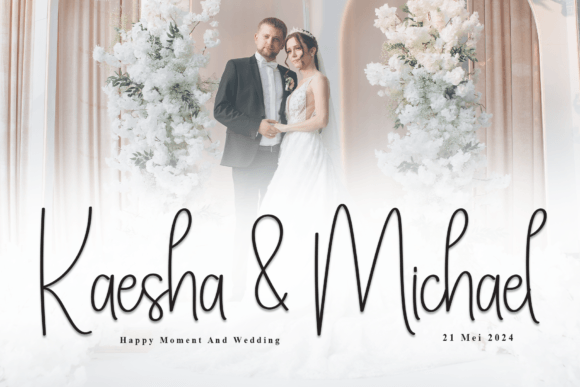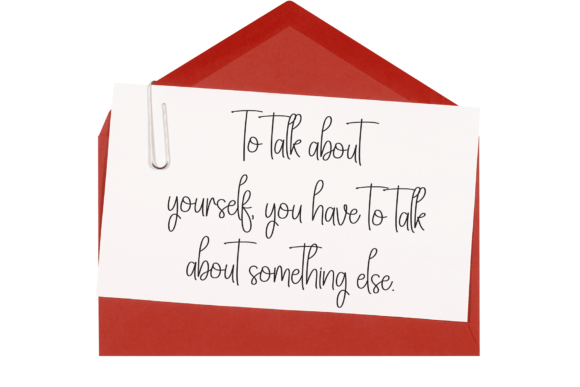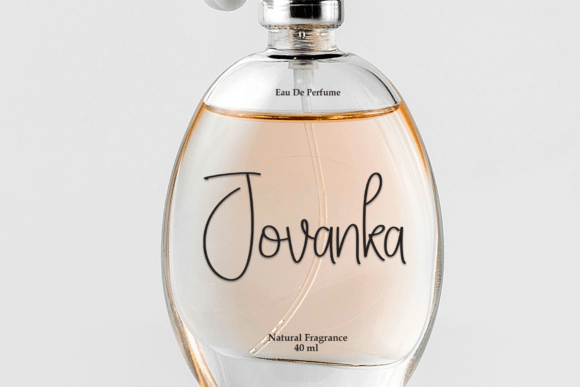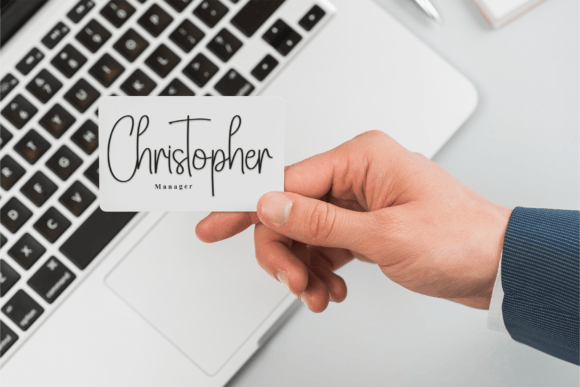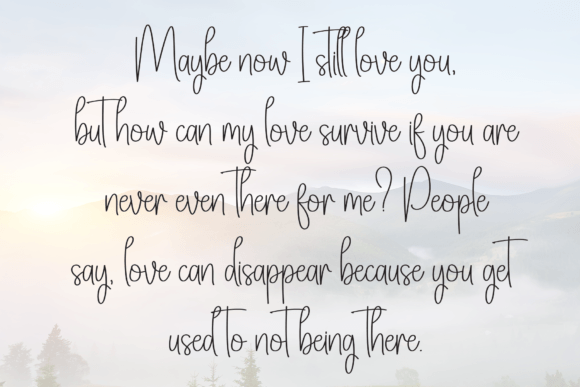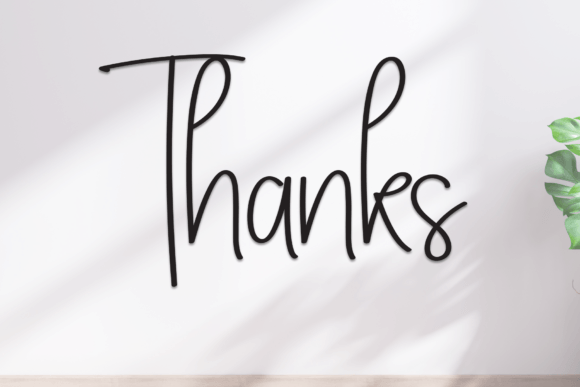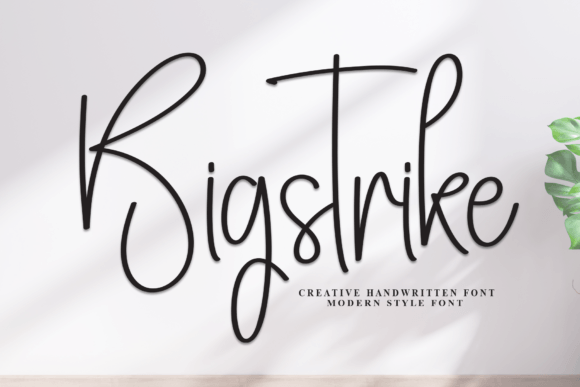
Introducing Bigstrike Font: Elevate Your Designs with Elegance and Flair
Are you a designer or crafter looking for a font that can add a touch of sophistication and whimsy to your creative projects? Look no further than Bigstrike Font, a delicate, elegant, and flowing handwritten font that is sure to make your designs come alive.
The Characteristics of Bigstrike Font
Bigstrike Font is a beautifully crafted font that boasts a range of characteristics that make it perfect for a wide range of design applications. Its delicate and elegant strokes are carefully balanced to create a sense of harmony and flow, making it ideal for use in projects where a touch of sophistication is desired.
One of the standout features of Bigstrike Font is its beautiful and well-balanced characters. Each letter is carefully crafted to ensure that it is proportionate and visually appealing, making it perfect for use in a variety of design contexts, from logos and branding to invitations and stationery.
Why Choose Bigstrike Font?
So why choose Bigstrike Font for your design projects? Here are just a few reasons why this font is a great choice:
- Elegance and sophistication: Bigstrike Font has a delicate and elegant feel that is perfect for designs where a touch of sophistication is desired.
- Versatility: Bigstrike Font matches a wide pool of designs, making it a versatile choice for a range of projects.
- Easy to read: The carefully balanced characters in Bigstrike Font make it easy to read, even at small sizes.
- Unique and creative: Bigstrike Font has a unique and creative feel that will help your designs stand out from the crowd.
How to Use Bigstrike Font in Your Designs
Bigstrike Font is a versatile font that can be used in a wide range of design applications. Here are a few ideas to get you started:
- Logos and branding: Use Bigstrike Font to create a sophisticated and elegant logo or brand identity.
- Invitations and stationery: Add a touch of whimsy and elegance to your invitations and stationery with Bigstrike Font.
- Packaging and labels: Use Bigstrike Font to add a touch of sophistication to your packaging and labels.
- Digital designs: Bigstrike Font is perfect for use in digital designs, such as social media graphics and website headers.
Tips for Getting the Most Out of Bigstrike Font
Here are a few tips for getting the most out of Bigstrike Font:
- Experiment with different sizes and colors: Bigstrike Font looks great in a range of sizes and colors, so don’t be afraid to experiment and find the perfect combination for your design.
- Pair with other fonts: Bigstrike Font pairs well with a range of other fonts, so try pairing it with a bold font for added contrast.
- Use it to add a touch of elegance: Bigstrike Font is perfect for adding a touch of elegance and sophistication to your designs.
In conclusion, Bigstrike Font is a beautiful and versatile font that is perfect for designers and crafters looking to add a touch of elegance and whimsy to their creative projects. With its delicate and elegant strokes, well-balanced characters, and range of design applications, Bigstrike Font is sure to become a go-to font in your design arsenal. So why not give it a try and see how it can elevate your designs to the next level?